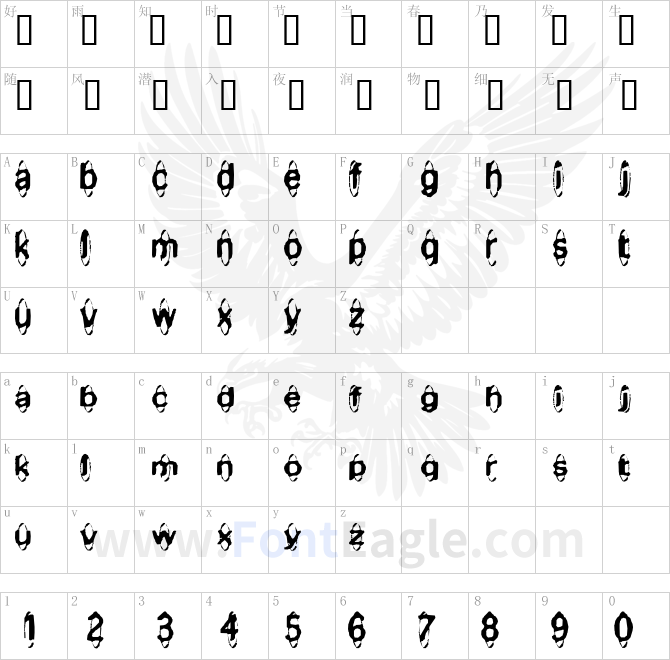
- Font name:Mischstab Apfelsaft
- Font Subfamily ID:Macromedia Fontographer 4.1.2 Mischstab Apfelsaft
- Font Full Name:Mischstab Apfelsaft
- Font Version:Macromedia Fontographer 4.1.2 13.04.1998
- Postscript:MischstabApfelsaft
- Font Copyright:©1998 tot mischstab,i.